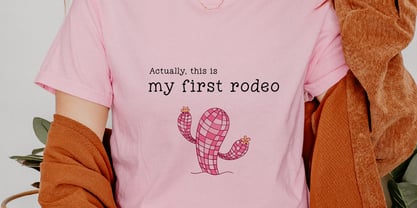
Heartwarming Serif
by Kaya Fonts
The Heartwarming Serif Font Family was designed by Fatih Kaya and published by Kaya Fonts. Heartwarming Serif contains 1 styles. More about this family
Introducing Heartwarming Serif – A charming, handmade serif font with a simple, heartfelt style perfect for adding a cozy touch to your creative work.
It's great for craft projects, branding, posters, invitations, greeting cards, social media or any project that needs a splash of authenticity.
• Handwritten Serif Font with soft and rounded corners